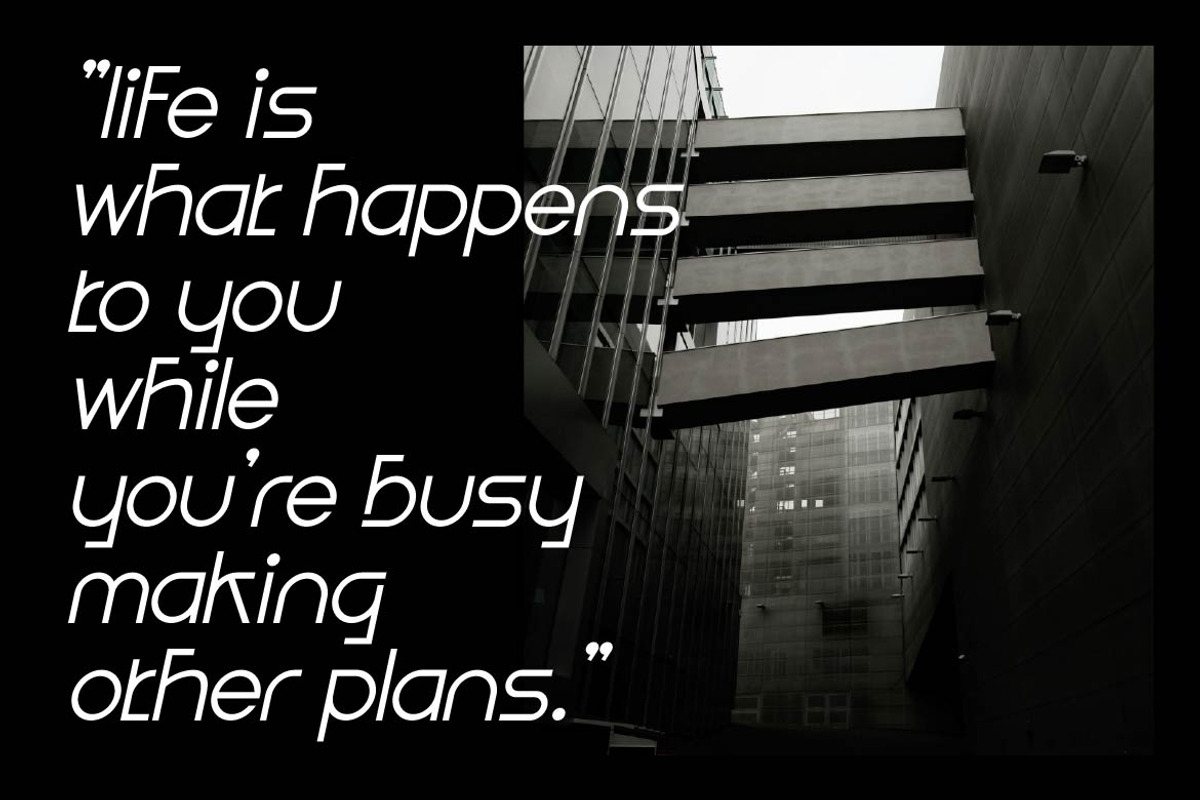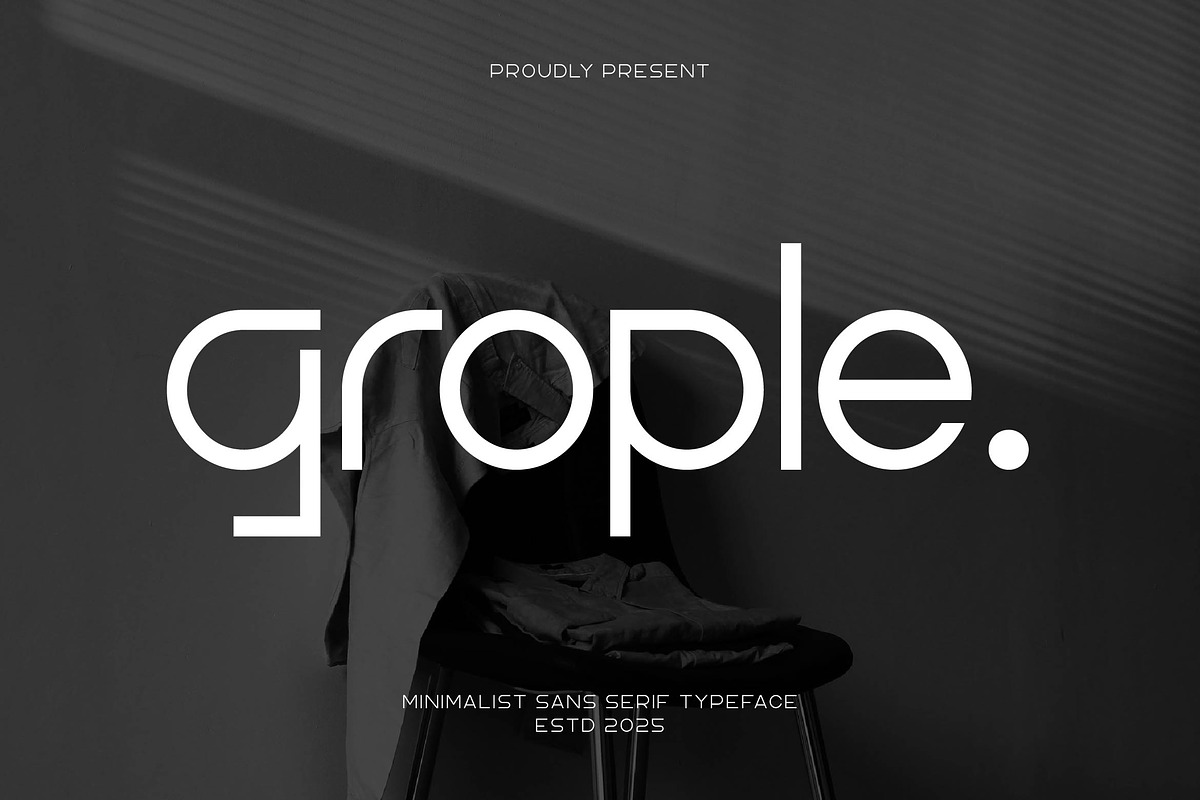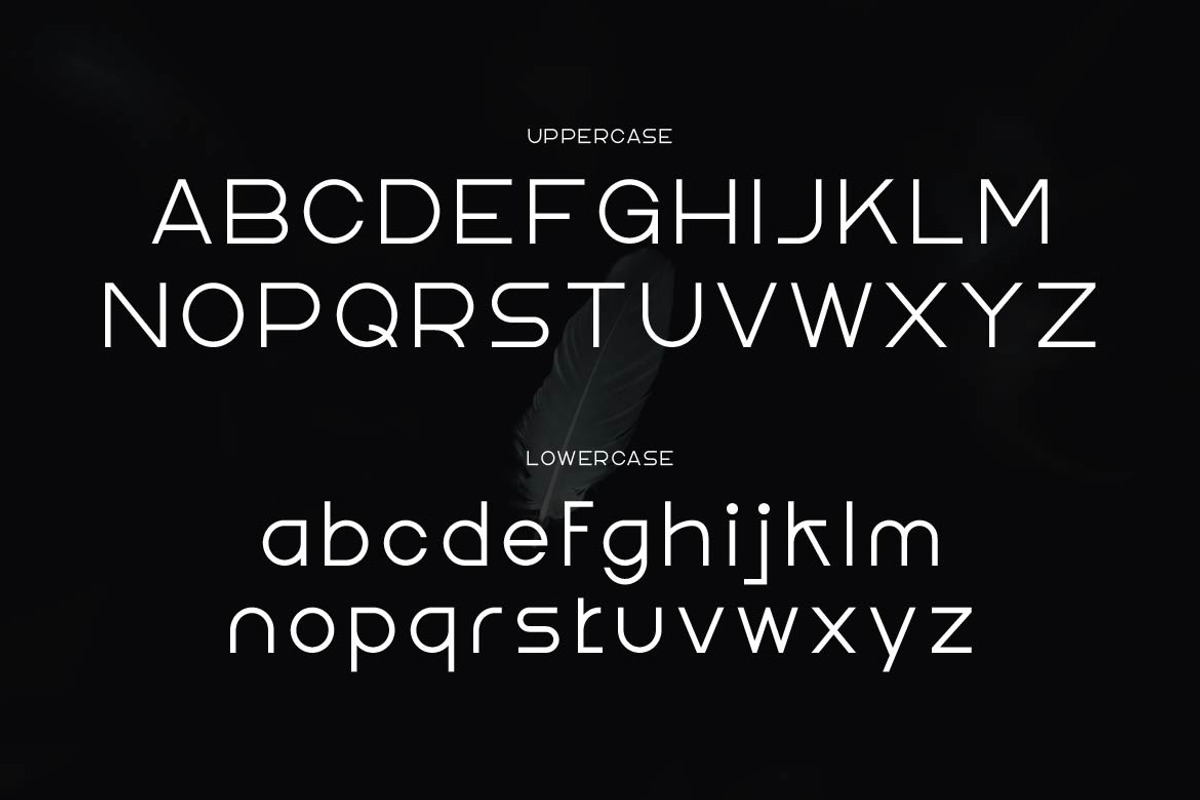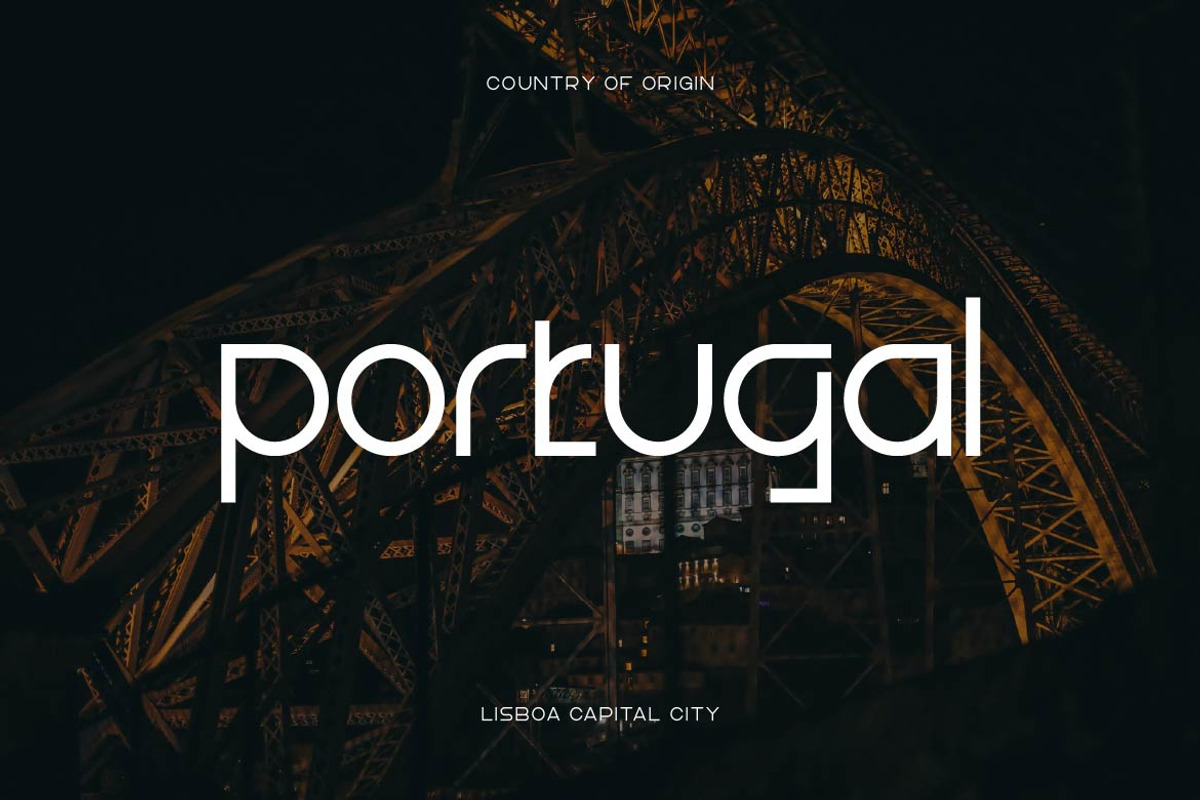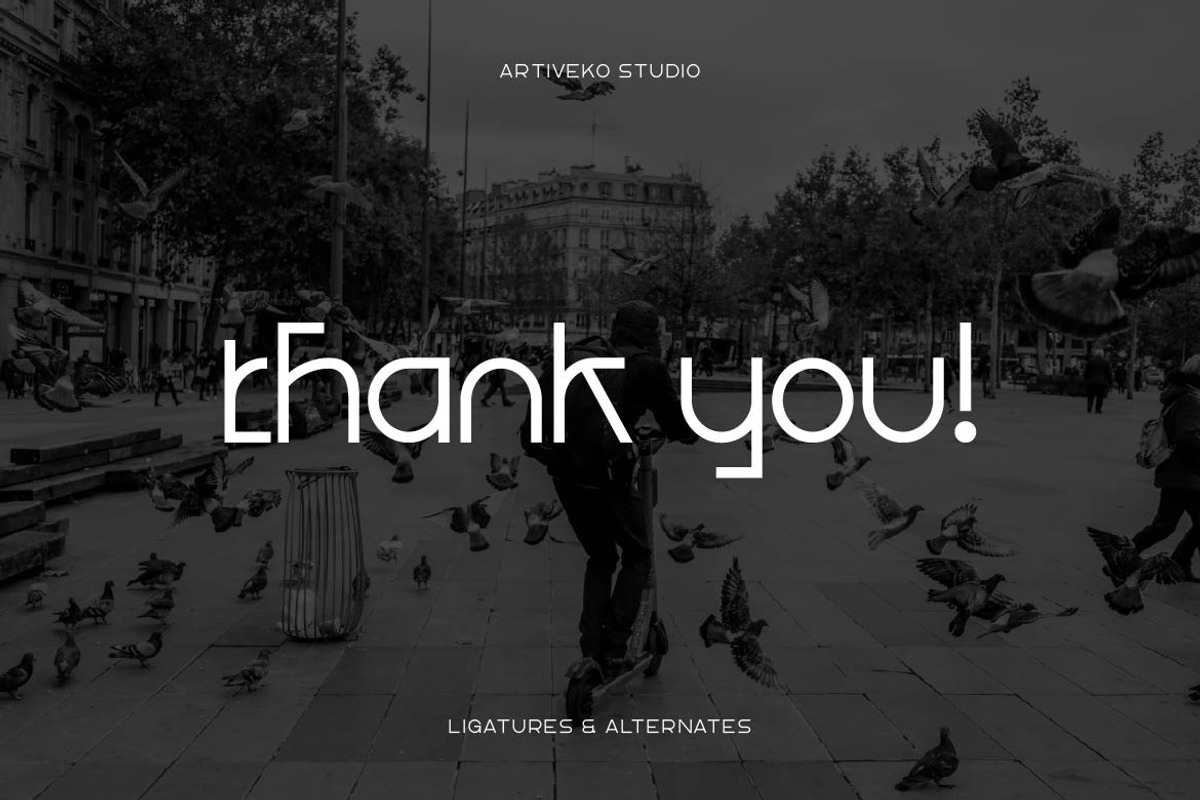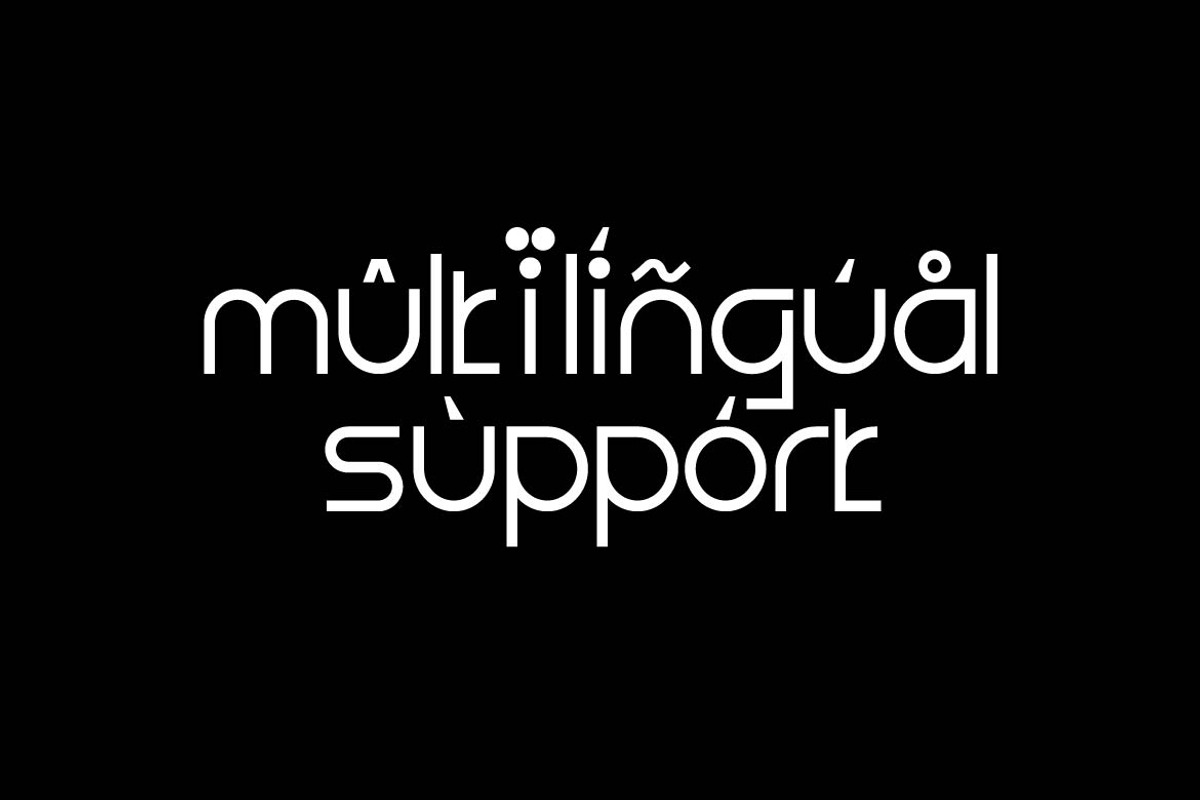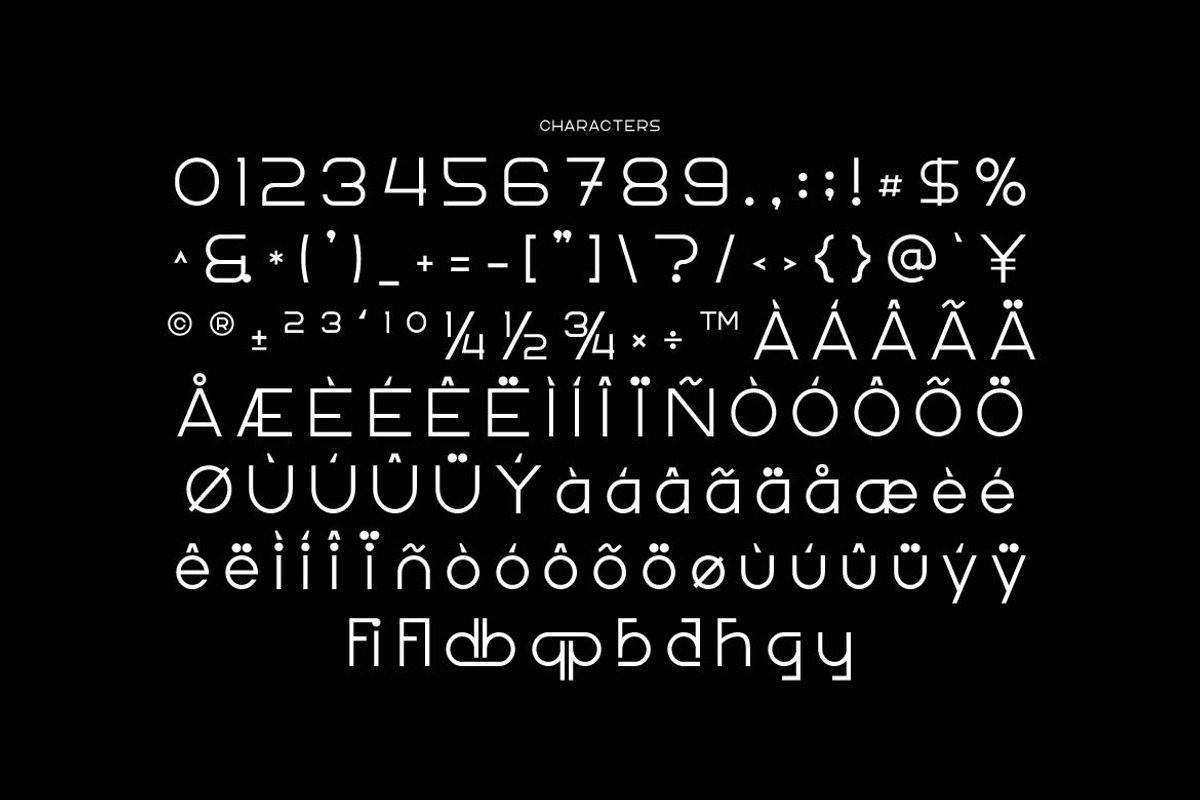
Grople Minimalist Sans Serif
Grople is a sleek and contemporary sans serif font that embodies the essence of minimalism. With clean lines, balanced shapes, and refined spacing, Grople offers a sense of modern simplicity perfect for branding, logo design, packaging, magazines, and digital interfaces.